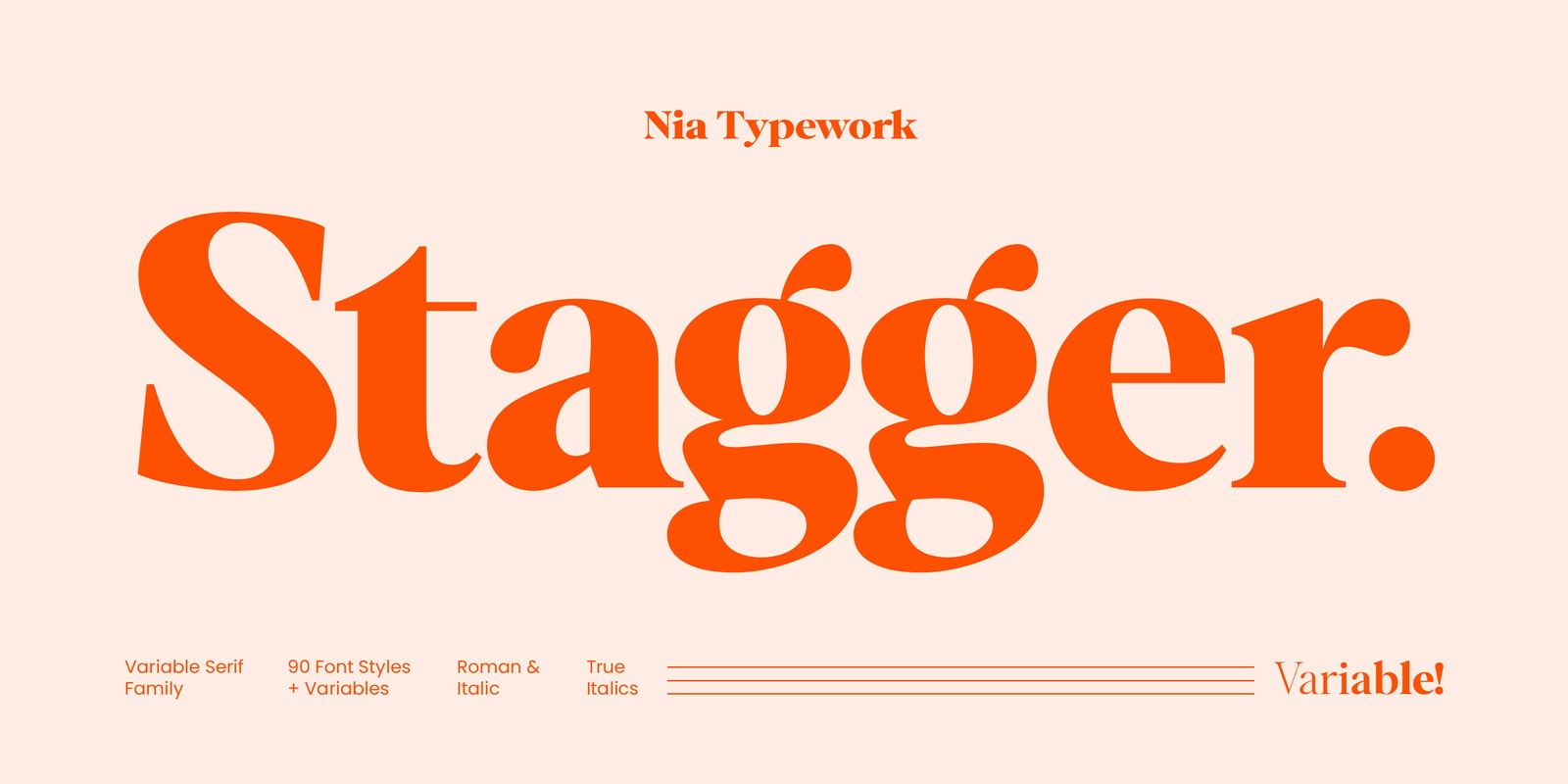
Stagger Font Family
Stagger Font Family brings a balanced structure and contemporary look, making it suitable for both digital and print design. Stagger is a modern serif typeface with a bold, expressive personality. Designed as a variable font family, it offers extensive flexibility with a wide range of styles, from roman to true italics. Its strong letterforms, subtle contrast, and distinctive curved details create a look that feels both elegant and playful. Stagger is well-suited for headlines, branding, editorial design, and any application that calls for a confident and character-rich typographic voice.